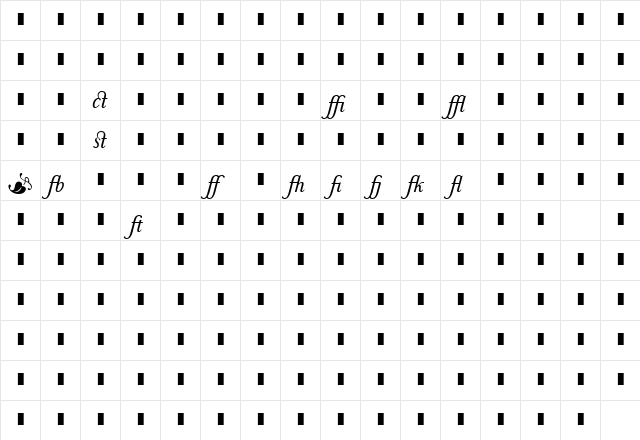
Baskerville1757Ligatures Italic
Design Context for Baskerville1757Ligatures Typeface
Baskerville1757Ligatures is a composed and adaptable typeface that performs quietly and consistently across a wide range of design contexts. The slanted form adds forward momentum and visual energy.
Pro Tip: Try Baskerville1757Ligatures for annotation and caption copy alongside an upright companion — the contrast in angle creates a dynamic but ordered typographic system.